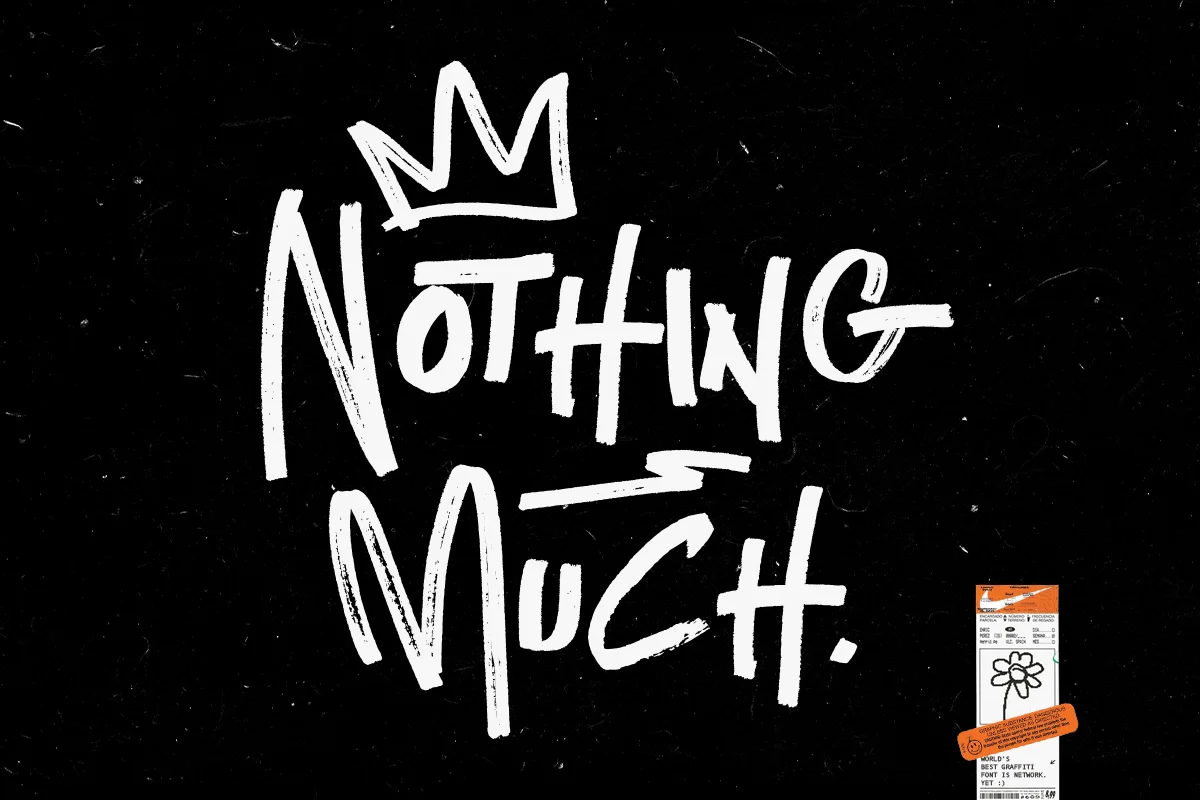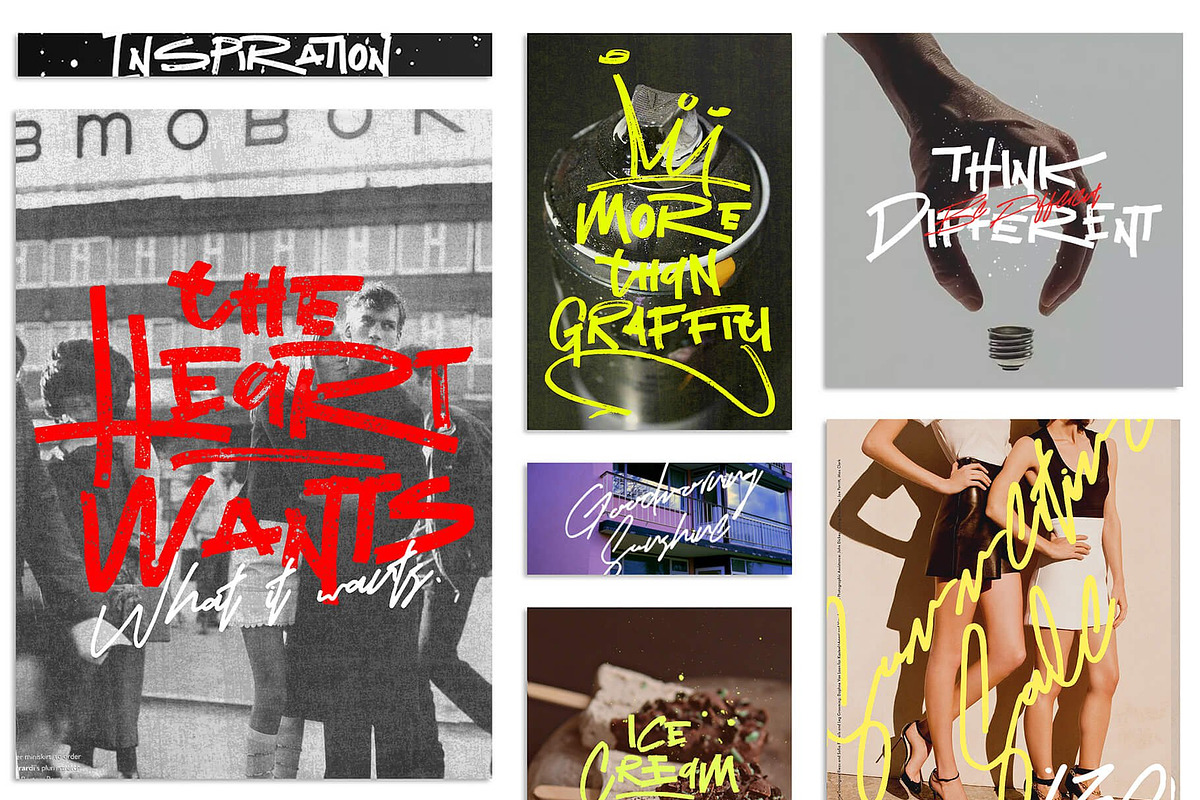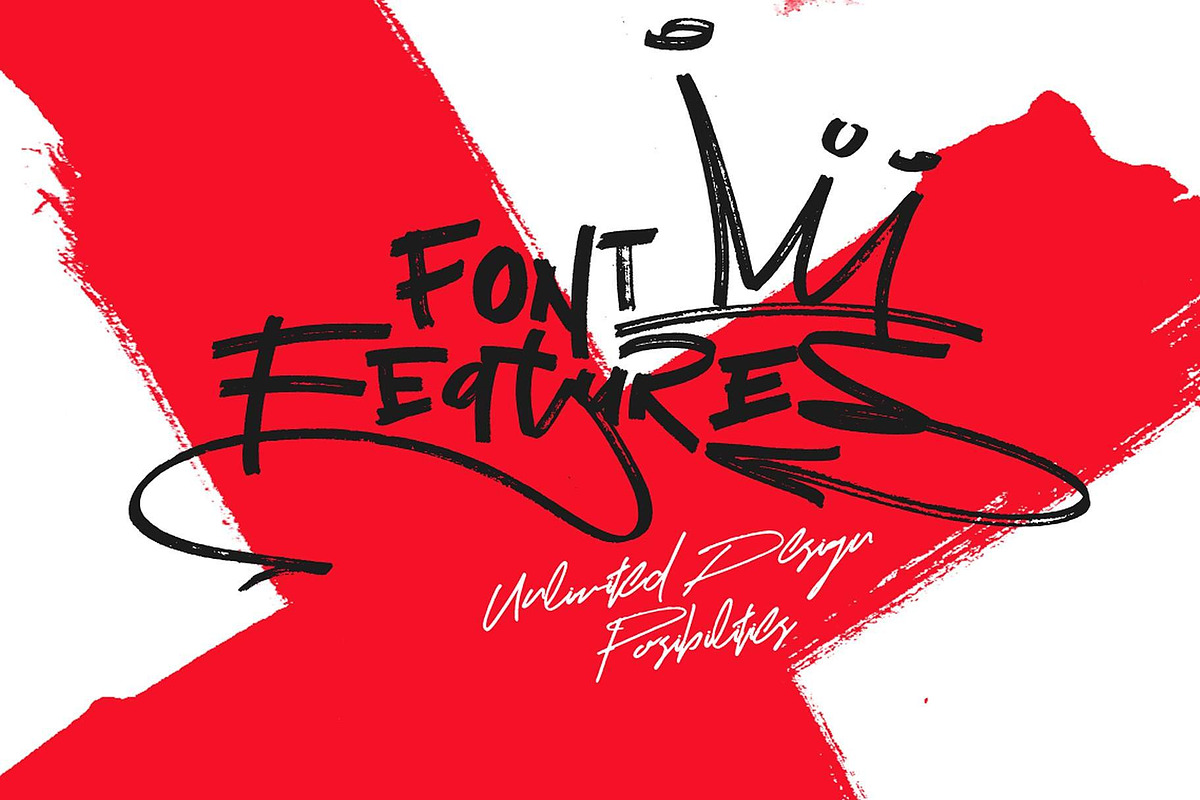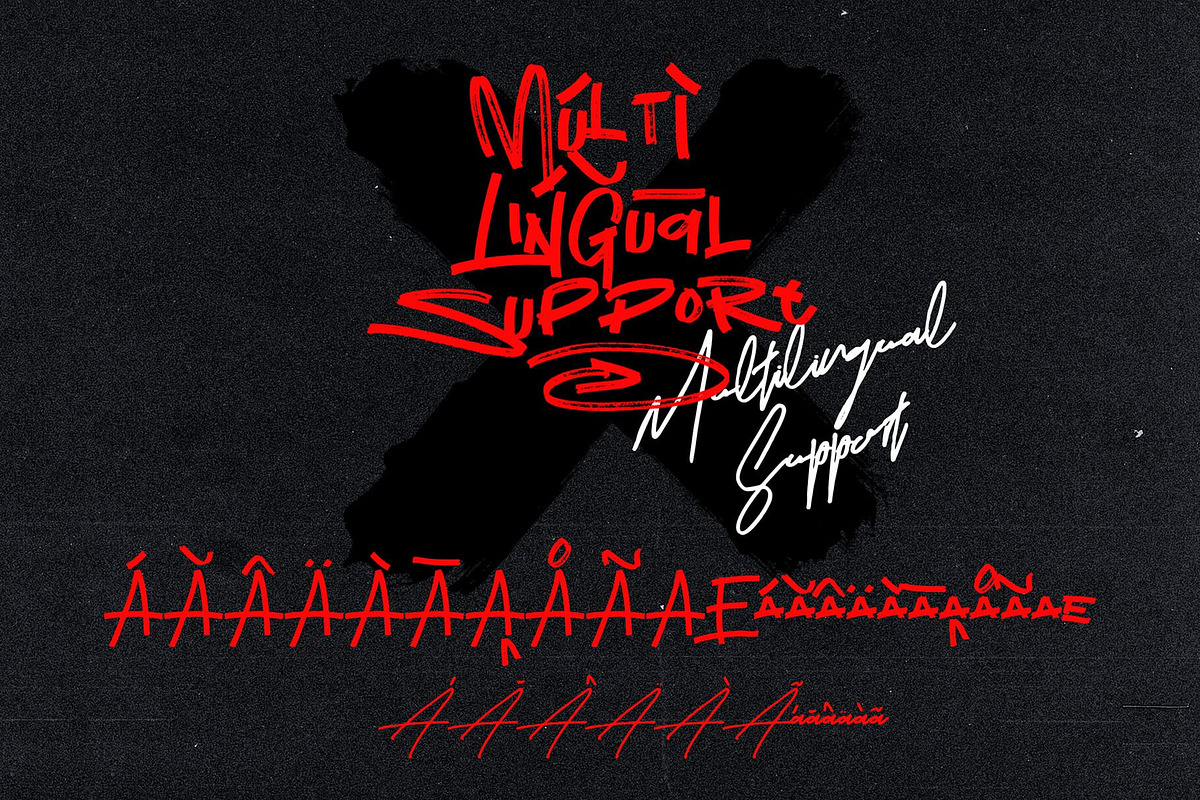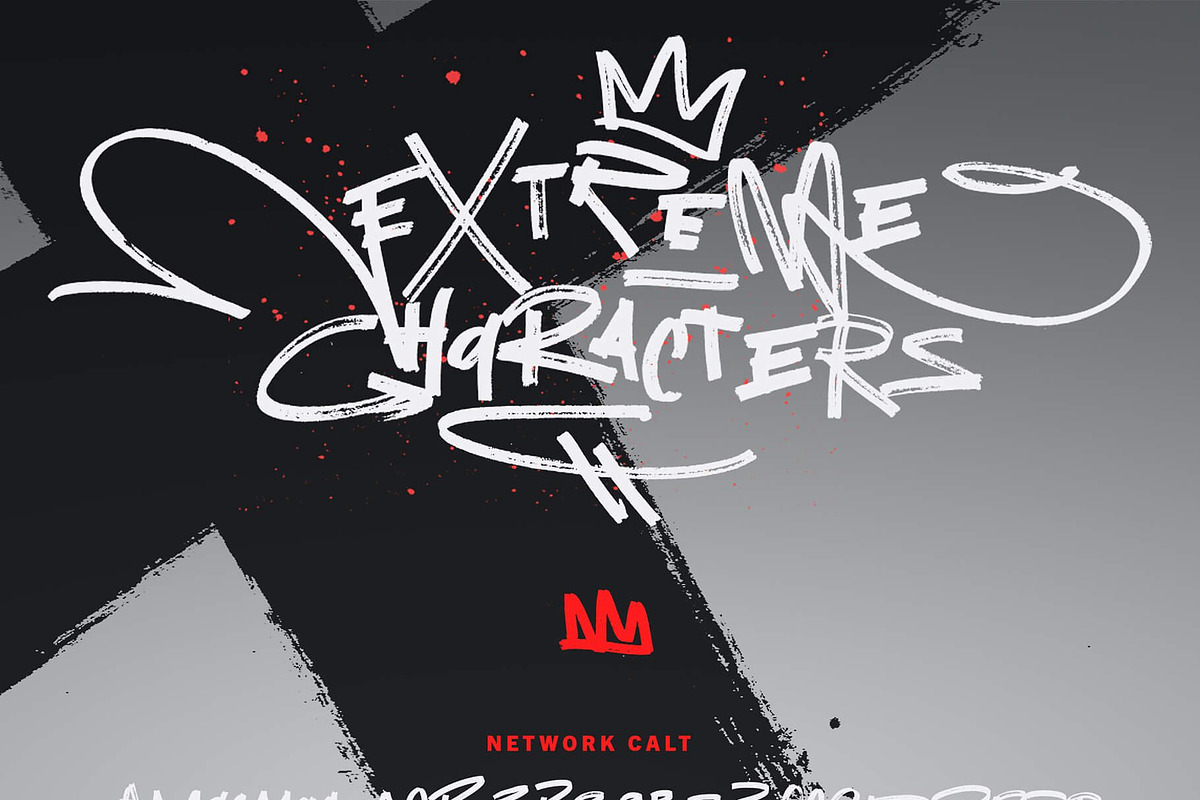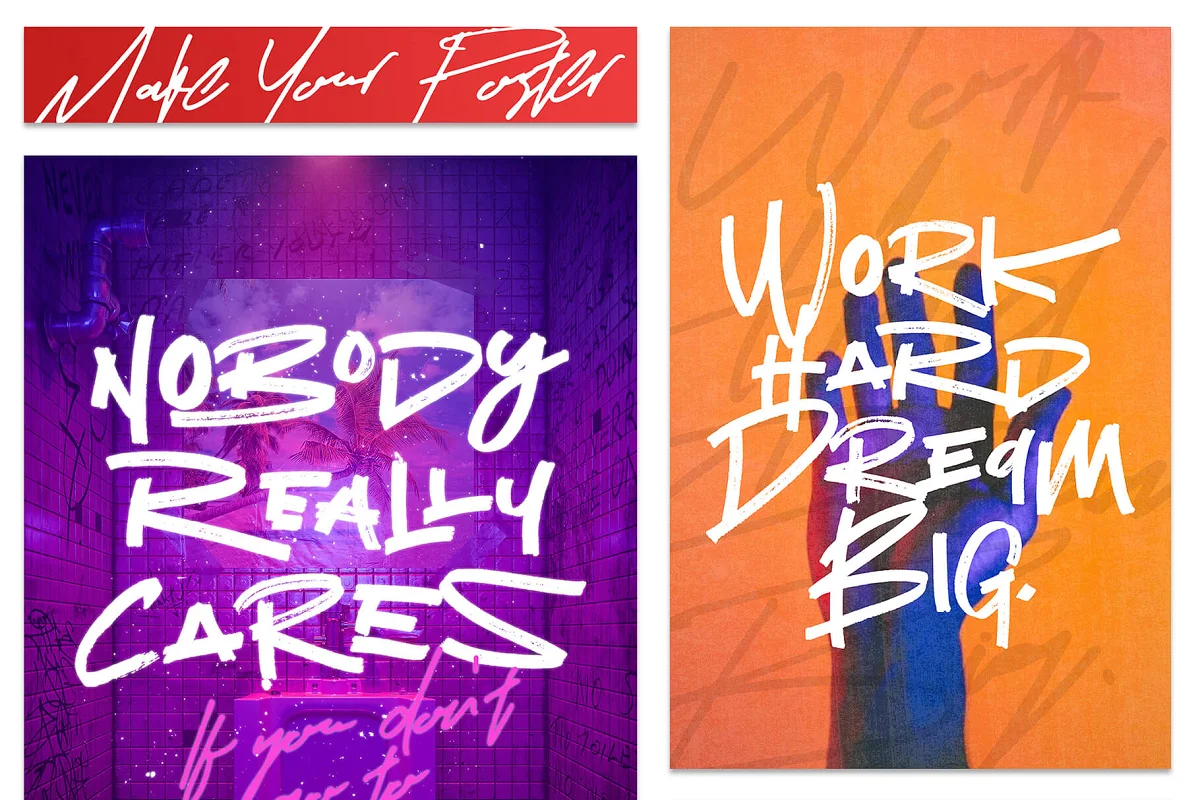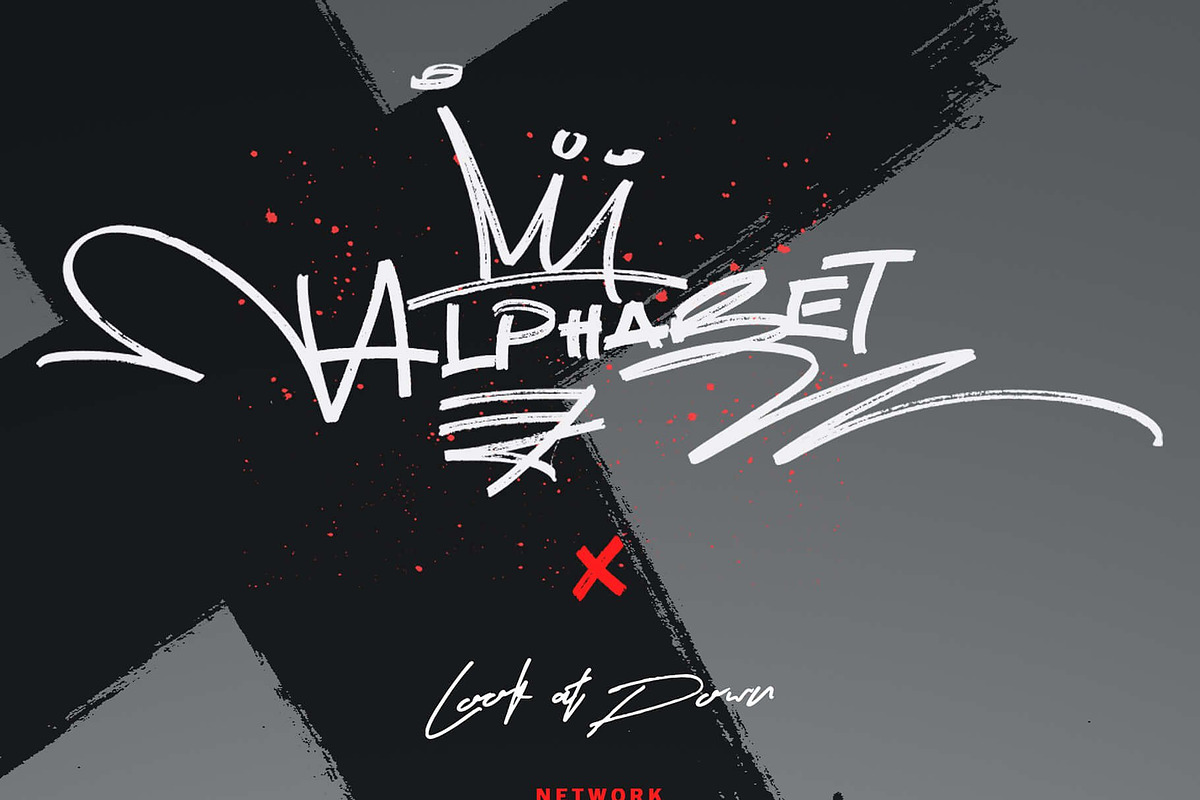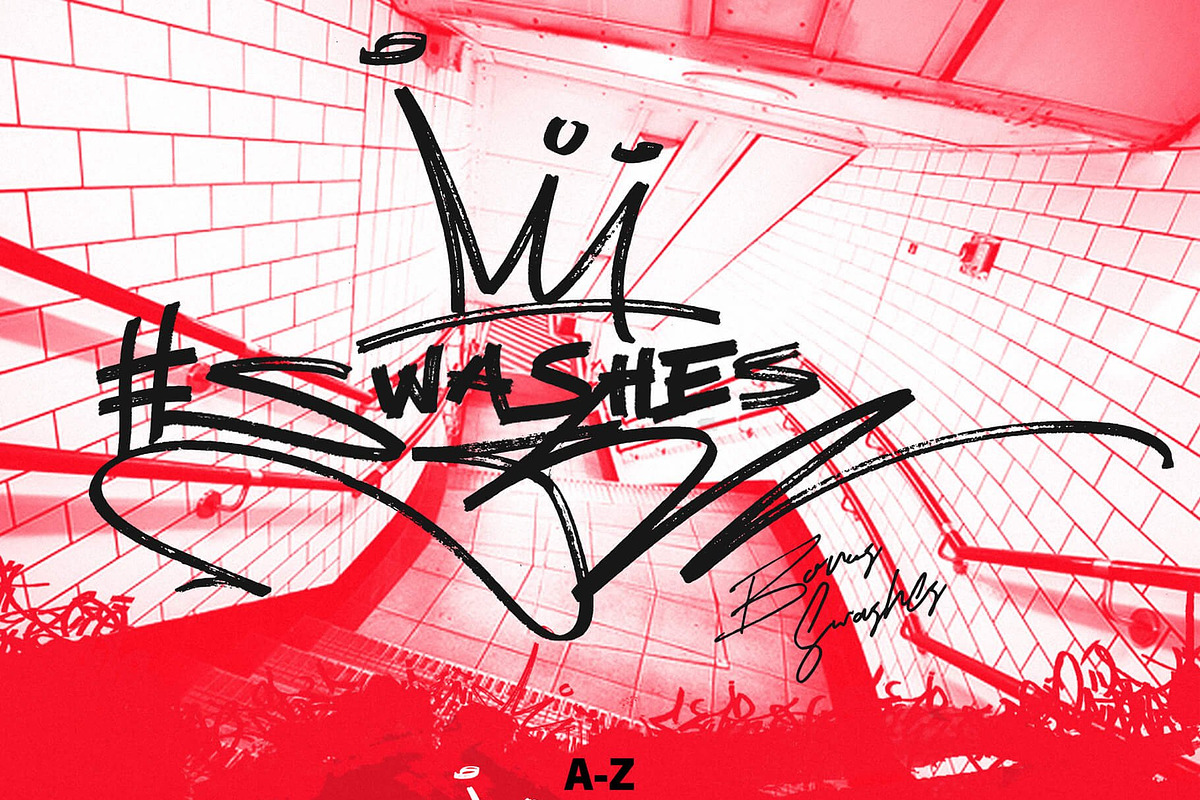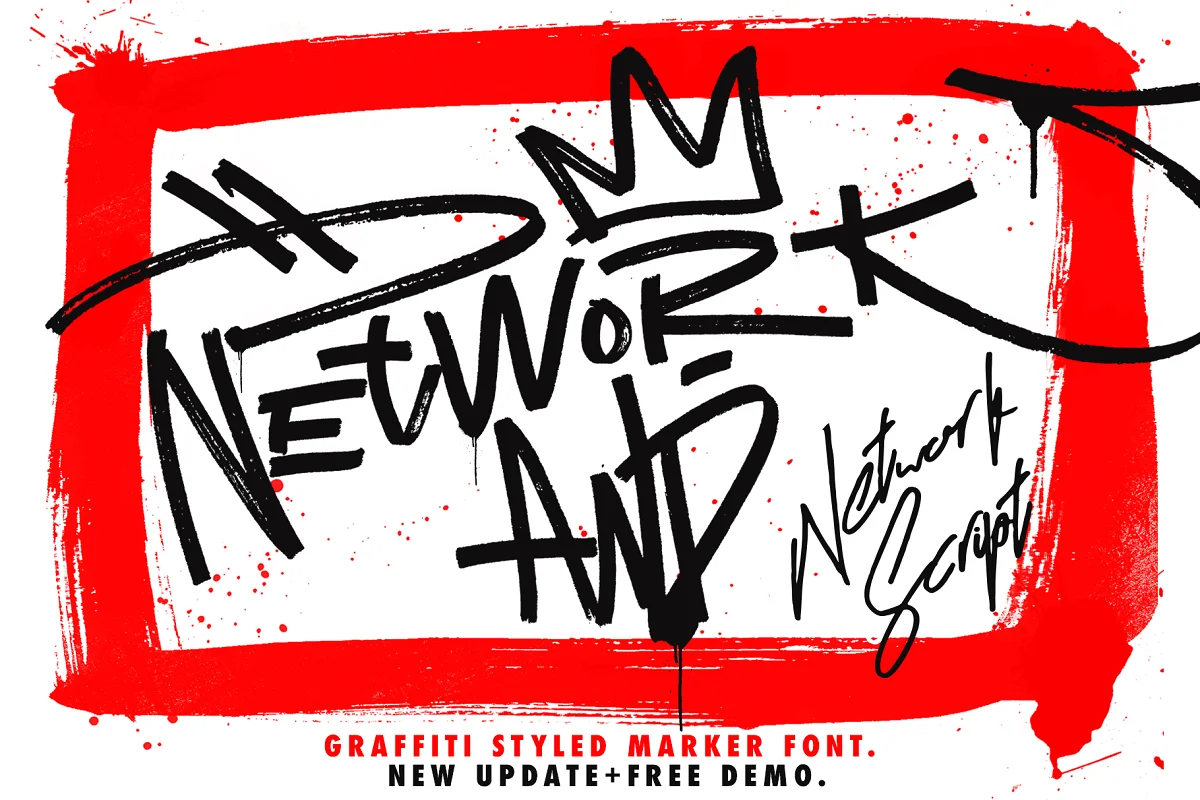
Network Fonts and Extras Updated
STYLE. UPDATED.
Optimized font files, brand new web file formats, and six spray textures. Uniqueness reborn. This is Network. World's best graffiti and non-graffiti marker-styled font ever. Yet:)
Hello there! I am introducing my new font Network! I called with this name because Network Fonts and Extras for your lifestyle rather than your designs. Network font, carefully selected from hundreds of letters. Signature-styled Network Script perfectly fit next to the Network Font. Besides all this, the Network Swashes Font is designed to customize your designs.
Signature Style
Original: Network Fonts and swashes created for your special designs. You can turn your dreams into reality and customize them.
Unique Creation: An unprecedented experience a creation that no one has ever had before and will uncover your awareness.
Create your Brand: Unlike a standard font to create a new brand concept. Be different life. Your own.
Create your own mark: That’s the most special part of this font. A brand new identity for your personal signatures.